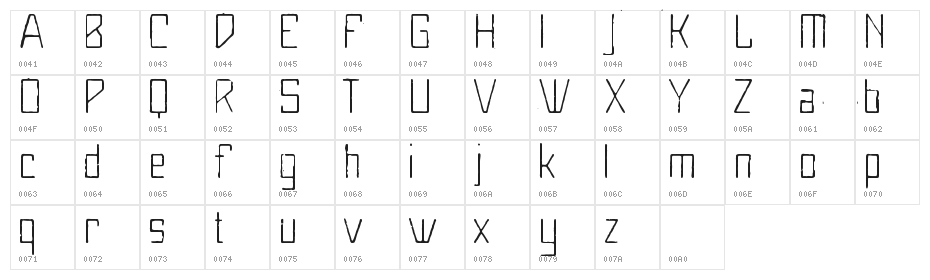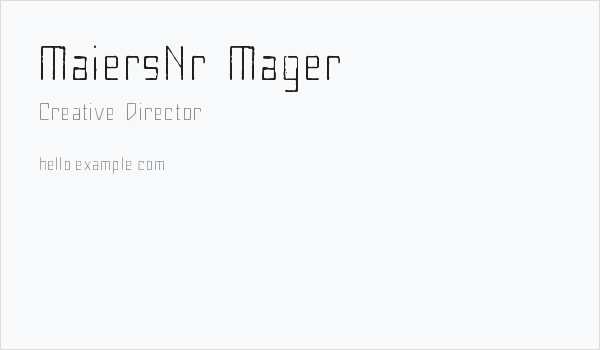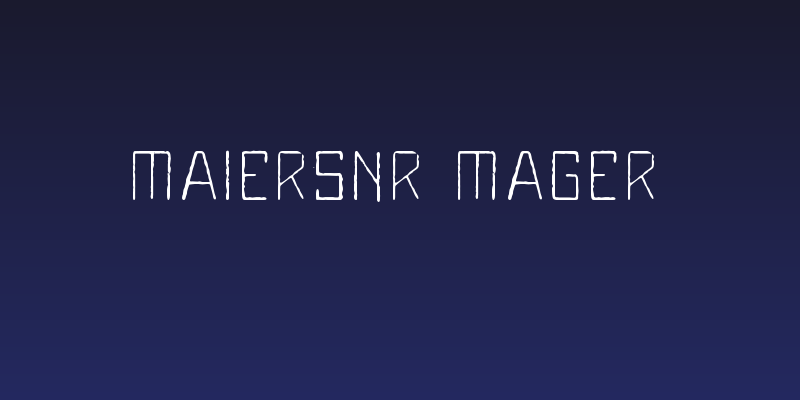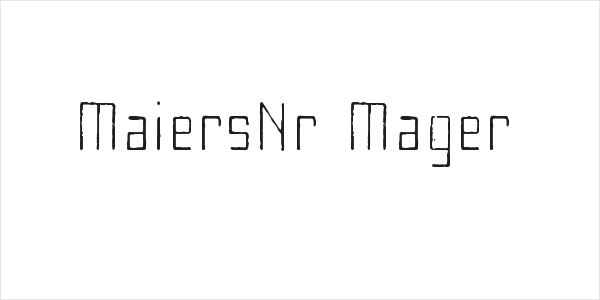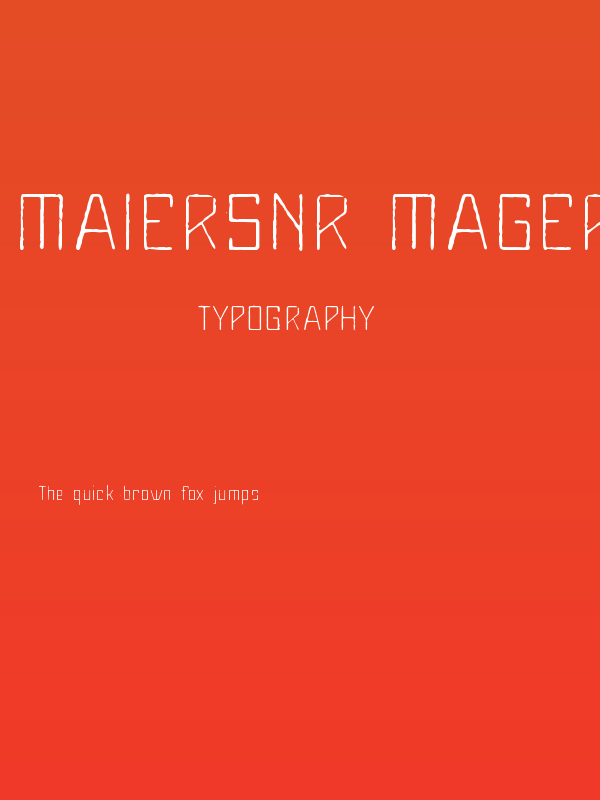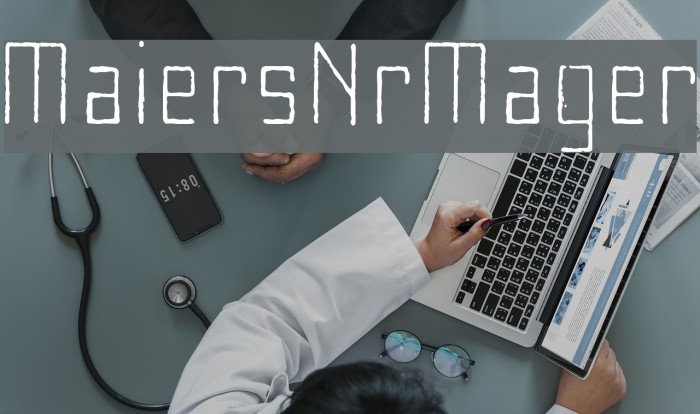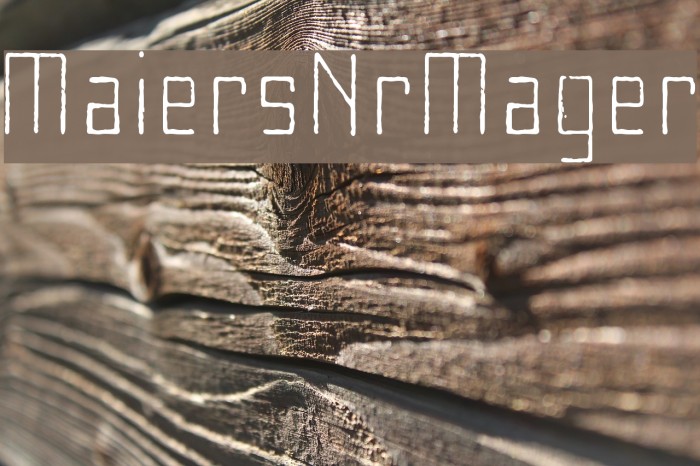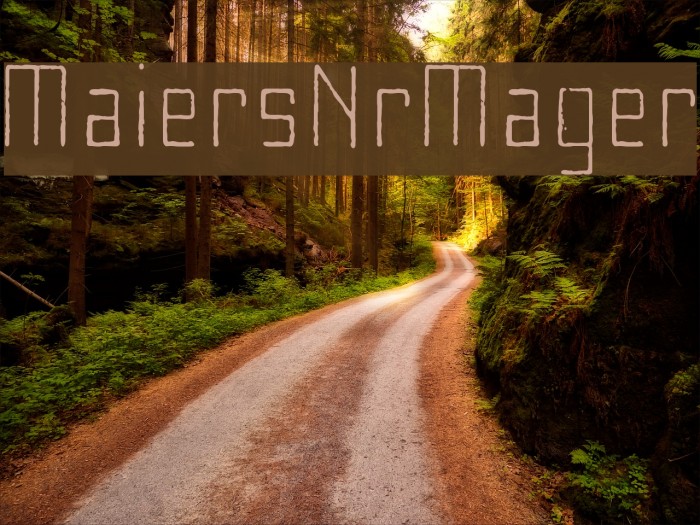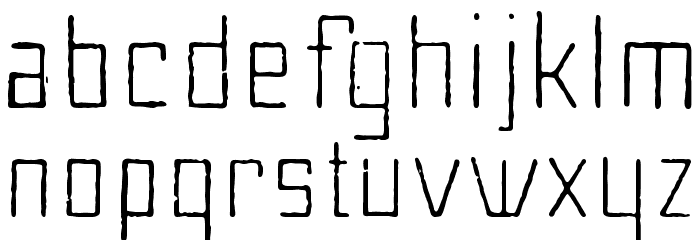
MaiersNr8-Mager Font
MaiersNr8-Mager Description
This font features a unique, hand-drawn aesthetic with a slightly irregular and organic feel. The characters are tall and narrow, with a distinct, uneven stroke that gives it a rustic and vintage appearance. The uppercase letters maintain a consistent height, while the lowercase letters have a more varied baseline, adding to the font's quirky charm. The numbers and special characters follow the same style, ensuring a cohesive look across all glyphs. The font's overall design is reminiscent of old typewriter fonts, but with a modern twist that makes it suitable for contemporary projects.
| Width | Condensed |
| Overall Style | Vintage |
| Use Case | Logos, Posters, Invitations |
| Proposed Projects | Ideal for projects that require a vintage or rustic touch, such as wedding invitations, branding for artisanal products, or retro-themed posters. |